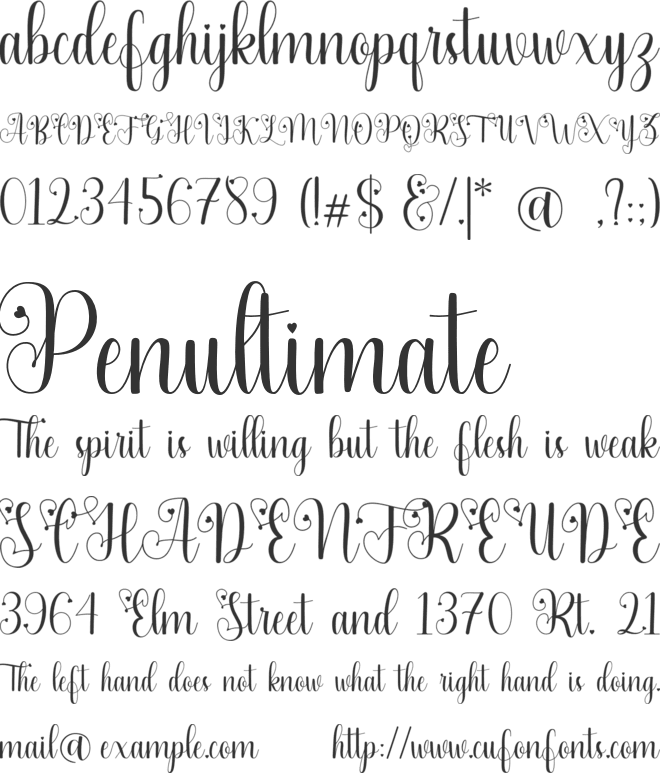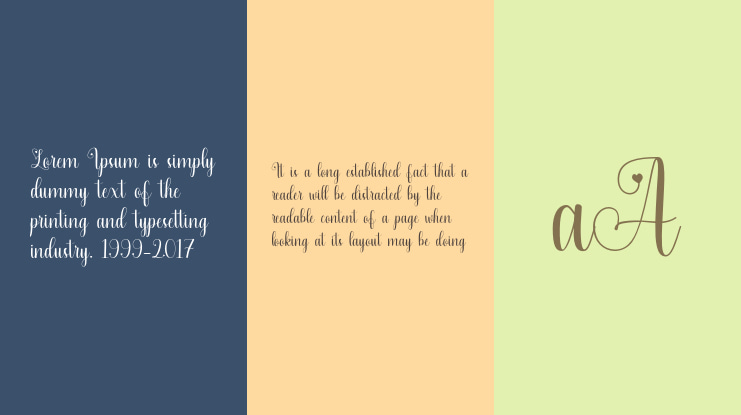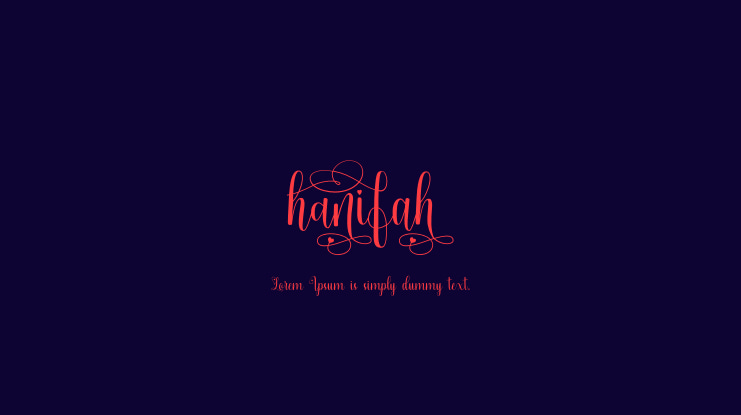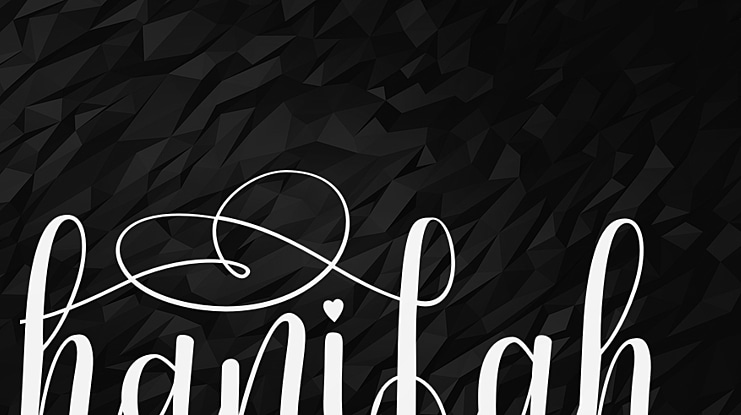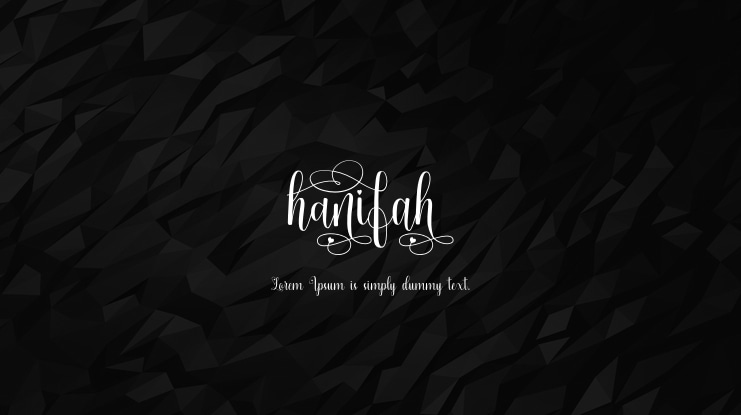
hanifah Font
Hanifah is a great script font. wrapped in subtle strokes with a stunning decoration. This font can be changed as needed, whether the script is normal, bounce, casual, or without tail. because there are many alternatives to this font.suitable for wedding invitations, quotes, labels, logos, social media posts, special events like birthdays, valentines, Christmas and anything else you need.What's included? (FULL LICENSE) :- OTF & TTF- Standard Character - Punctuation- Multilingual Character- PUA encoded CharactersOpentype Feature (FULL LICENSE) :- 15 Alternate ( including normal, bounce, casual, flourishing, no tail )- 1 Swash- LigatureLink to purchase full version and commercial license : http://bit.ly/hanifahfontgive me a cup of coffee : https://www.paypal.com/paypalme/ocans** Thank you for downloading my font, don't forget to buy a font license **Copyright (c) 2021 by OCSstudio. All rights reserved.